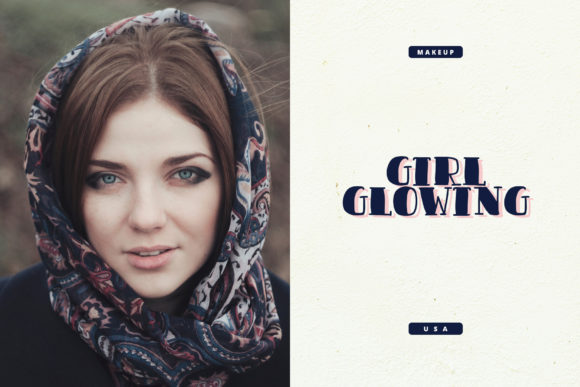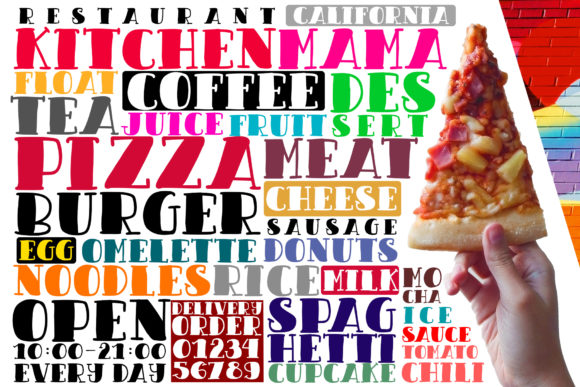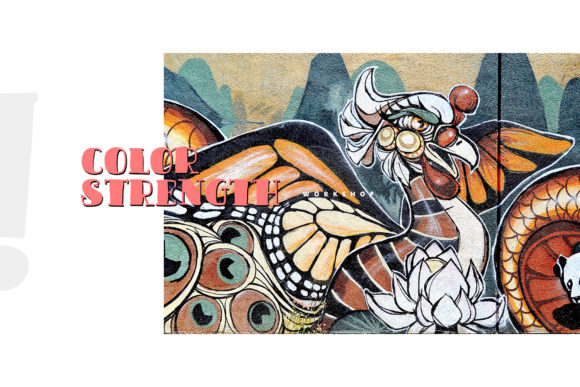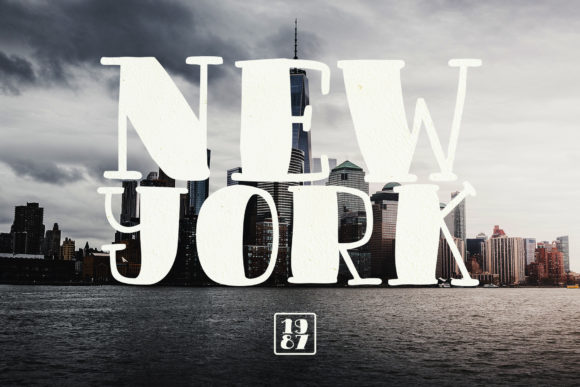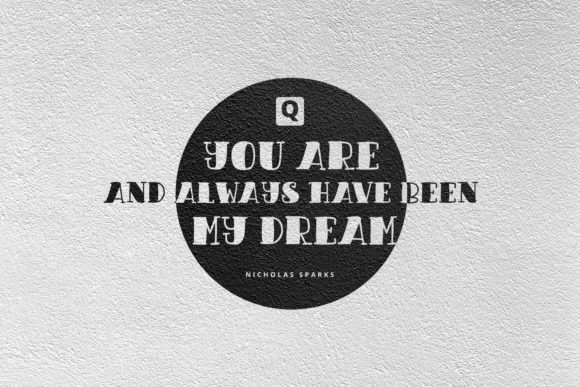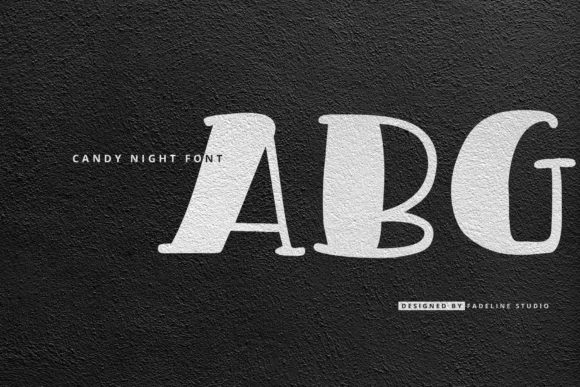
Candy Night Font: The Sweetest Addition to Your Crafting Projects
Are you a crafter or designer looking for a font that can add a touch of whimsy and playfulness to your projects? Look no further than the Candy Night Font! This unique and lovely display font is perfect for any crafting project that requires a casual and authentic feel. In this article, we’ll take a closer look at the Candy Night Font, its features, and how you can use it to take your crafting projects to the next level.
What is Candy Night Font?
Candy Night Font is a display font designed to evoke a sense of fun and playfulness. Its unique and quirky design makes it perfect for crafting projects, such as handmade cards, scrapbooking, and other paper crafts. The font features rounded edges, irregular shapes, and a carefree feel that’s sure to add a touch of personality to your projects.
Key Features of Candy Night Font
- Unique and quirky design: The Candy Night Font features a one-of-a-kind design that’s sure to stand out from the crowd.
- Rounded edges and irregular shapes: The font’s rounded edges and irregular shapes give it a playful and carefree feel.
- Perfect for crafting projects: The Candy Night Font is designed specifically for crafting projects, such as handmade cards, scrapbooking, and other paper crafts.
- Casual and authentic feel: The font’s casual and authentic feel makes it perfect for projects that require a personal touch.
How to Use Candy Night Font in Your Crafting Projects
The Candy Night Font is versatile and can be used in a variety of crafting projects, including:
- Handmade cards: Add a personal touch to your handmade cards with the Candy Night Font.
- Scrapbooking: Use the font to add captions and journaling to your scrapbook pages.
- Paper crafts: The Candy Night Font is perfect for paper crafts, such as gift tags, journal pages, and other paper projects.
- DIY projects: Use the font to add a personal touch to your DIY projects, such as signs, banners, and other decorative items.
Tips for Using Candy Night Font
Here are a few tips for using the Candy Night Font in your crafting projects:
- Pair it with other fonts: The Candy Night Font pairs well with other fonts, such as script fonts and sans-serif fonts.
- Use it in combination with images: The font looks great when used in combination with images, such as photographs and illustrations.
- Experiment with colors: The Candy Night Font looks great in a variety of colors, so don’t be afraid to experiment and find the perfect color for your project.
The Candy Night Font is a unique and lovely display font that’s perfect for any crafting project that requires a casual and authentic feel. Its quirky design and playful feel make it a great addition to any project, from handmade cards to scrapbooking and paper crafts. With its versatility and ease of use, the Candy Night Font is sure to become a favorite among crafters and designers. So why not give it a try and see how it can add a touch of sweetness to your next crafting project?